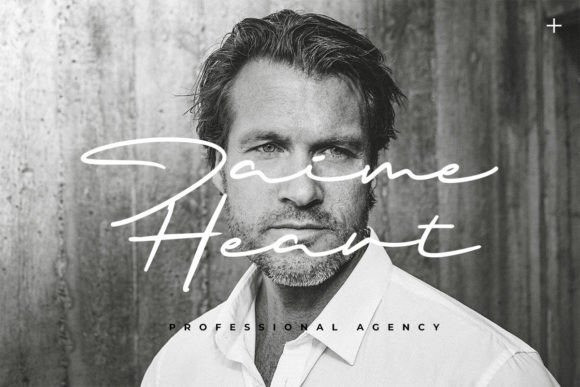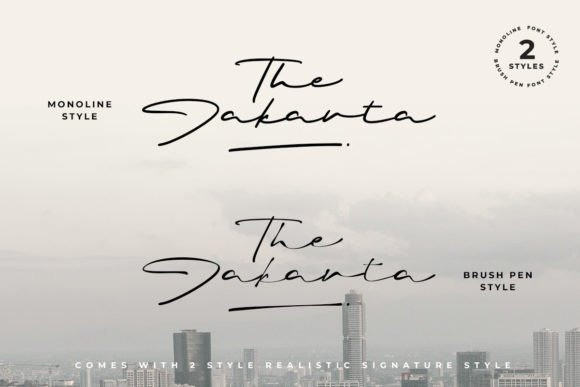
Briana Font
Briana is a realistic signature font, that comes in 2 styles (Monoline style & Brush pen style). Briana is perfect for different projects such as logos & branding, invitations, quote text, stationery, wedding invitations, social media posts, advertisements, product packaging, labels, or anything that needs a handwritten touch.